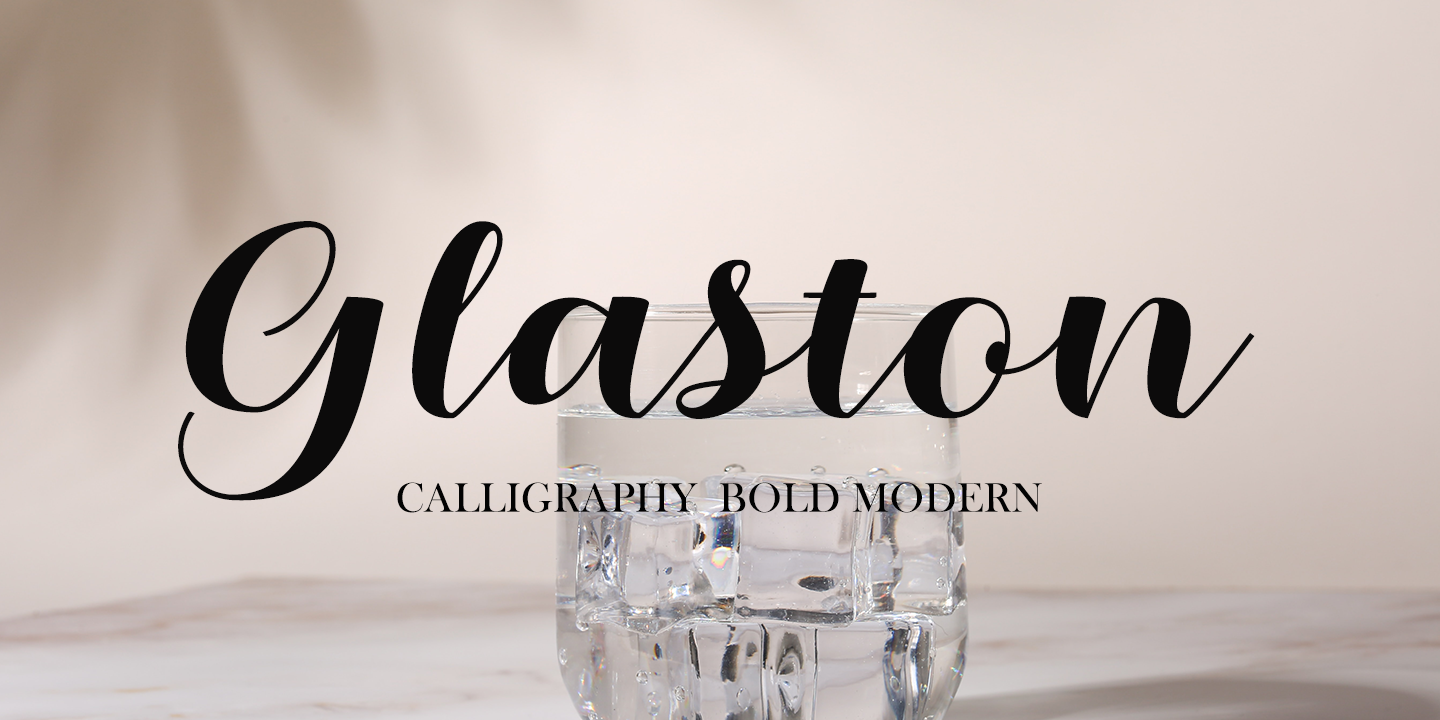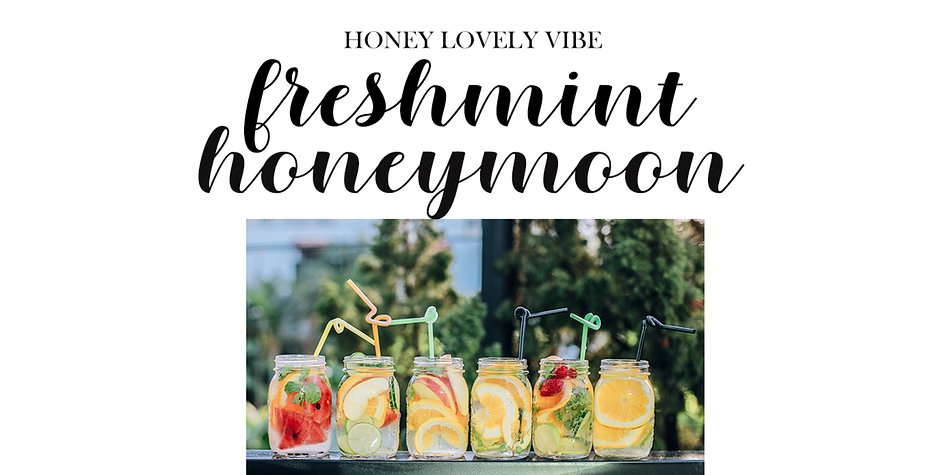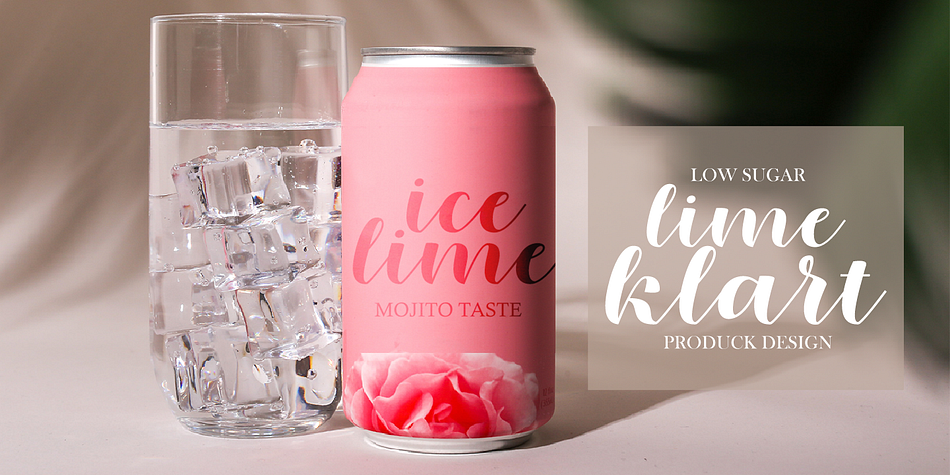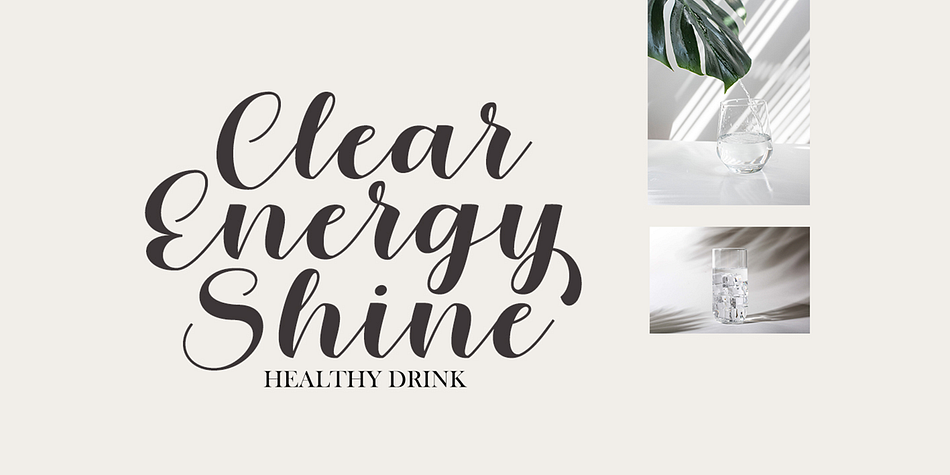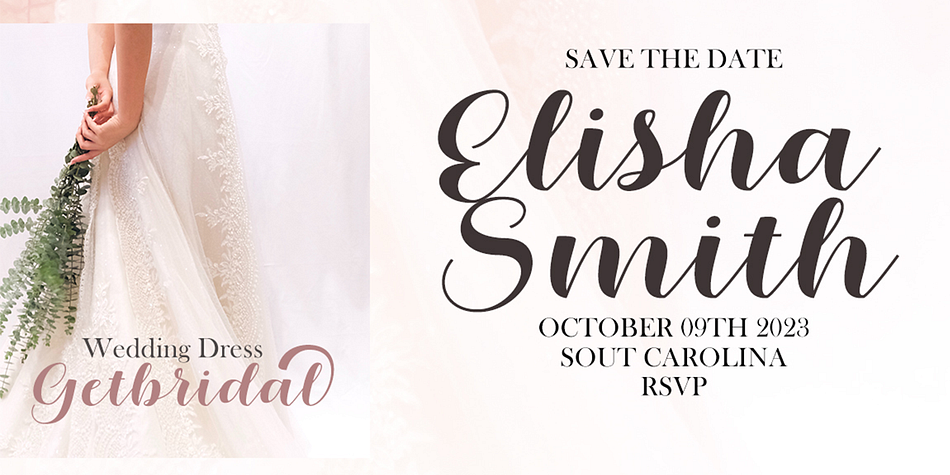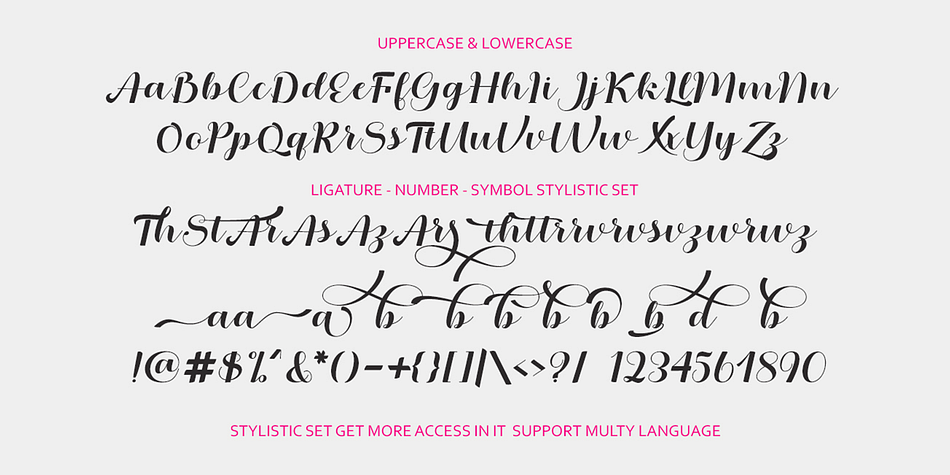
Glaston
Glaston is a modern calligraphy font family published by Gatype.
Hello friends… We are proud to present our new font. New natural Glaston with handwriting and script style makes this font look elegant, natural, stylish.
Glaston would be perfect for invitations, logos & branding, photography, advertising, watermarks, social media posts, product packaging, product designs, labels, wedding designs, stationery, special events or anything else that requires a taste for handwriting.